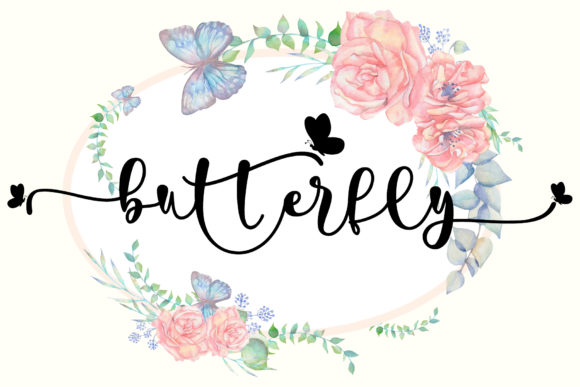
Get ready to flutter into a world of beauty and uniqueness with our exquisite Pretty Butterfly Font, a script font family that will add a touch of magic to your creative projects. Designed with the utmost precision and creativity by thomasaradea, this font exudes elegance, finesse, and a hint of playfulness, making it perfect for a wide range of applications.
Embrace the whimsical charm of Pretty Butterfly and let your imagination soar. This font is meticulously crafted to elevate your designs, bringing an enchanting aura to logos, branding, invitations, stationery, wedding designs, social media posts, and much more. Unleash your creativity and explore the endless possibilities that await you with Pretty Butterfly.
Immerse yourself in the enchanting world of Pretty Butterfly and discover its captivating features. Each letter dances gracefully across the page, exuding a delicate balance of classic and contemporary aesthetics. The smooth, flowing strokes evoke a sense of elegance and sophistication that will elevate your designs to new heights.
Pretty Butterfly is not just a font; it's an artistic expression that brings your vision to life. Whether you're creating stunning logos, charming invitations, or captivating social media posts, this font will add a touch of magic and allure that will leave a lasting impression on your audience.
Let Pretty Butterfly flutter into your design toolbox and embark on an artistic journey like no other. Its versatility and timeless beauty make it a must-have for designers, artists, and creative professionals seeking to elevate their work. Experience the joy of effortless design with Pretty Butterfly and let your creativity soar to new heights.